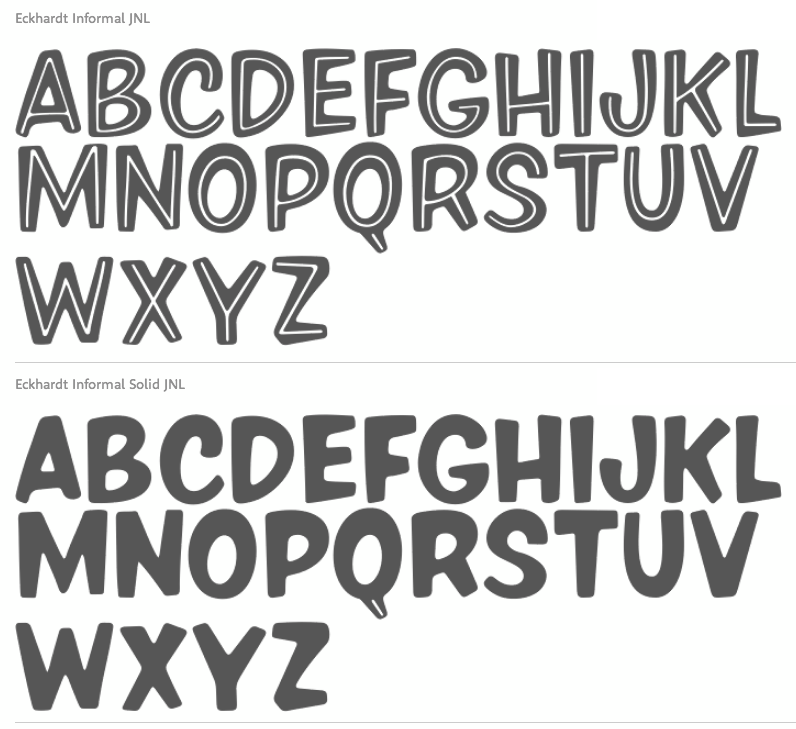
Jeff Levine: The Eckhardt Series [Jeff Levine]
Between 2006 and 2009, Jeff Levine published the Eckhardt Series, named after his friend Albert Eckhardt, Jr. (1929-2005) who had owned Allied Signs in Miami, Florida from 1959 until his passing. Several fonts by Jeff Levine are based on lettering found in an old sign painting book:
Jeff Levine: The Eckhardt Series